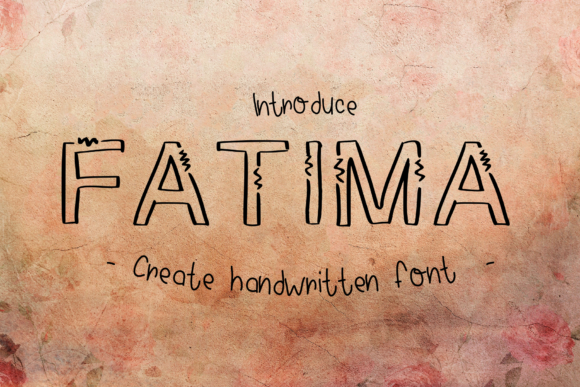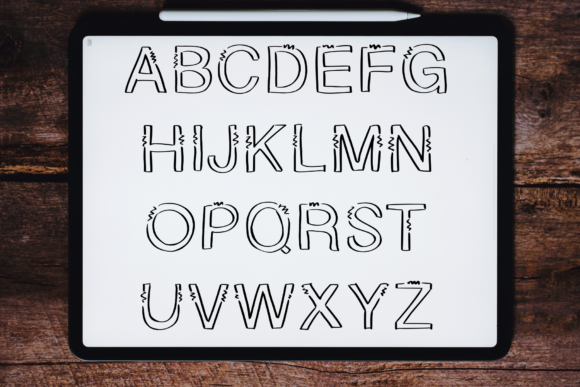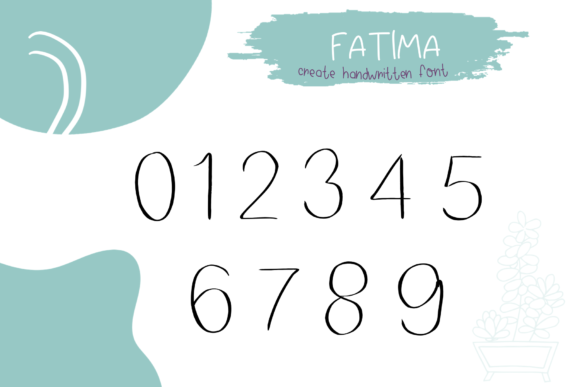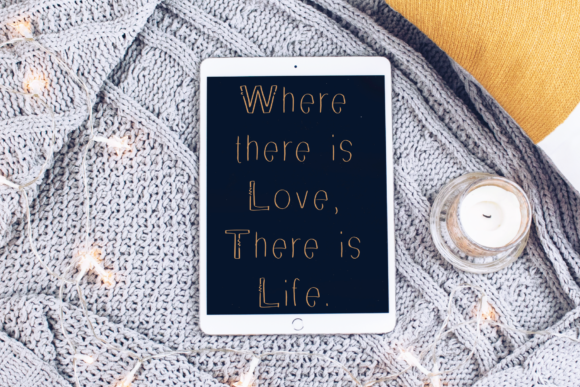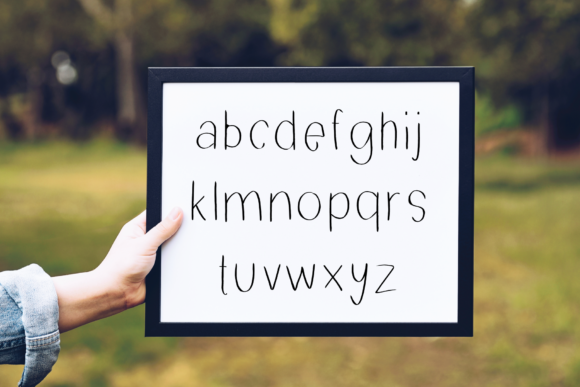
Fatima Font
About Fatima Font
Fatima sounds like a delightful and versatile handwritten font, bringing a unique and cute touch to a wide range of designs. Its delicate and friendly style makes it an excellent choice for various creative projects. Here are some exciting ideas on how to use Fatima to create charming and captivating designs:
1. Invitations and Greeting Cards: Use Fatima to design adorable and inviting invitations for parties, weddings, baby showers, and more. Create heartwarming greeting cards that express love and well-wishes for any occasion.
2. Children’s Books and Illustrations: Apply Fatima in children’s book titles, chapter headings, and illustrations to add a playful and whimsical element to the storytelling.
3. Handmade Crafts: Use Fatima in DIY craft projects such as scrapbooking, card making, or creating personalized gift tags, adding a touch of cuteness to handmade creations.
4. Social Media Graphics: Apply Fatima in social media posts to create eye-catching and charming graphics that resonate with your audience.
5. Branding and Logos: Use Fatima in branding for businesses targeting a fun and friendly image, especially suitable for brands catering to children or the young-at-heart.
6. Personal Blog Headers: Apply Fatima in blog headers to add a personal and charming touch to your blog’s visual identity.
7. Nature-Themed Designs: Use Fatima in designs inspired by nature, such as floral patterns or wildlife illustrations, to evoke a sense of whimsy and wonder.
8. Birthday Party Decorations: Create fun and captivating birthday party decorations like banners, cupcake toppers, and favor tags using Fatima.
9. Quote Prints: Design inspiring and motivational quote prints with Fatima, showcasing positive messages with a playful twist.
10. Apparel and Accessories: Apply Fatima in designs for t-shirts, tote bags, or phone cases, bringing a sense of cuteness and charm to wearable items.
11. Home Decor: Create delightful wall art with Fatima, featuring cute illustrations or sweet messages to brighten up living spaces.
12. Recipe Cards: Design adorable recipe cards with Fatima, perfect for sharing favorite recipes with family and friends.
13. Educational Materials: Use Fatima in educational materials for children, making learning fun and engaging.
14. Party Decorations: Apply Fatima in party banners, signs, and table cards to add a touch of whimsy to celebrations.
15. Personal Stationery: Create personalized stationery with Fatima, adding a cute and unique flair to your handwritten notes.
16. Pet-Themed Designs: Use Fatima in designs related to pets, such as pet store logos or pet care materials, to create a friendly and approachable image.
17. Inspirational Posters: Design motivational posters using Fatima’s unique and cute style, uplifting and inspiring others.
18. Comic Books and Graphic Novels: Apply Fatima in comic book titles or speech bubbles to add a playful and expressive element to the story.
19. Digital Stickers and Emojis: Create digital stickers and emojis with Fatima, perfect for adding a dose of cuteness to digital conversations.
20. Character Design: Use Fatima to develop cute and endearing characters for animations, illustrations, or mascots.
In conclusion, Fatima is a unique and cute handwritten font that can bring charm and playfulness to various creative projects. From invitations and children’s books to social media graphics and branding, Fatima’s versatility knows no bounds. Embrace the cuteness of Fatima and let your imagination soar as you create delightful and captivating designs!